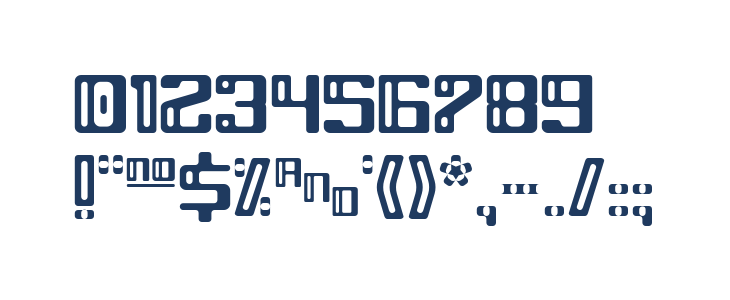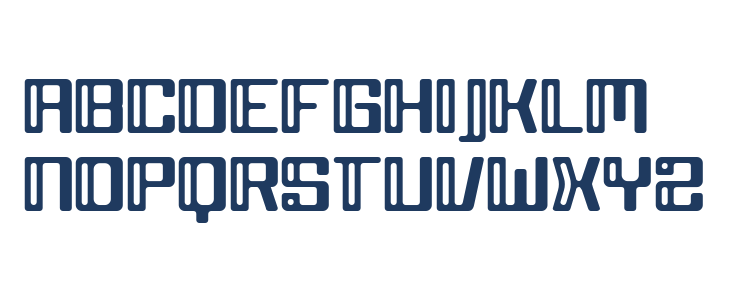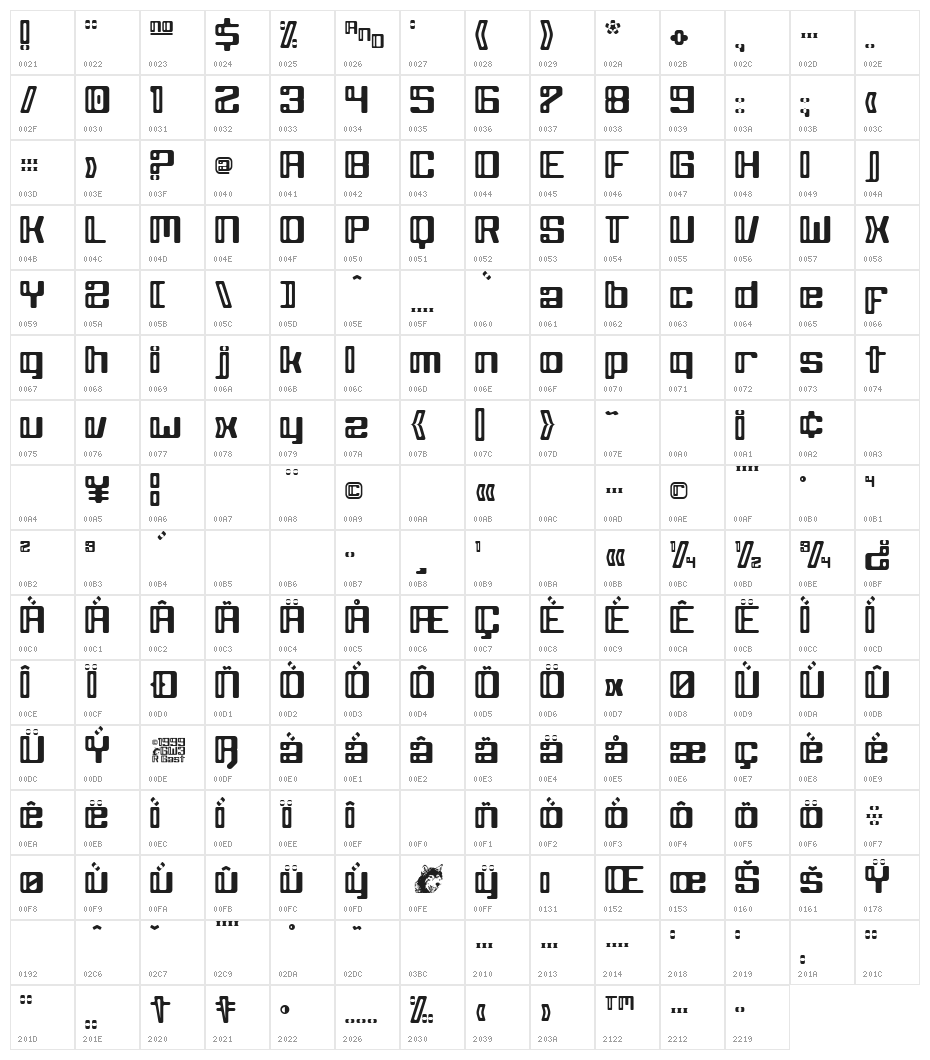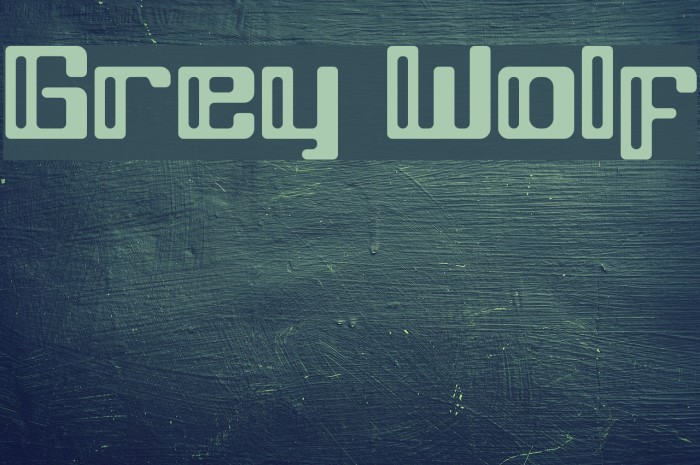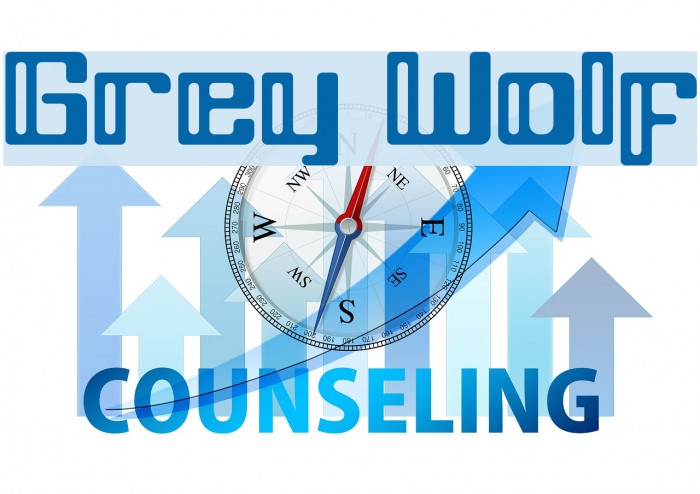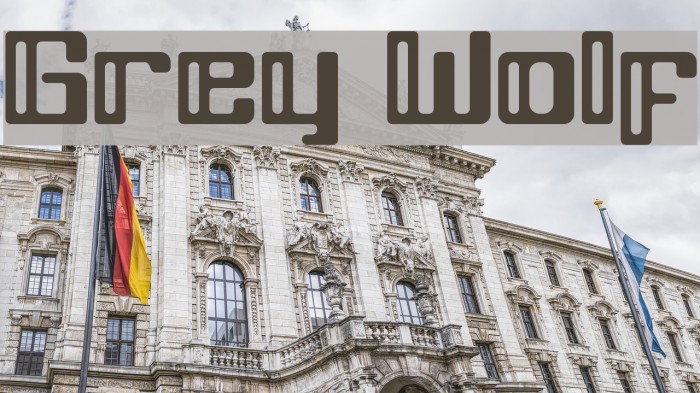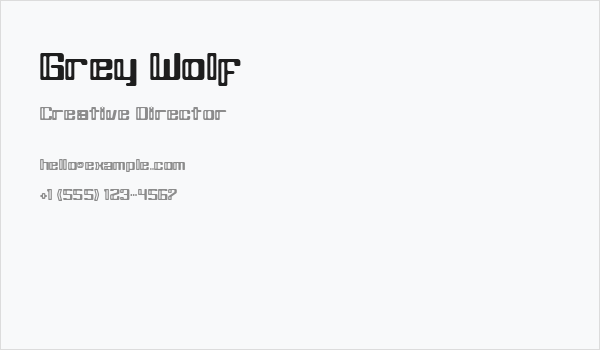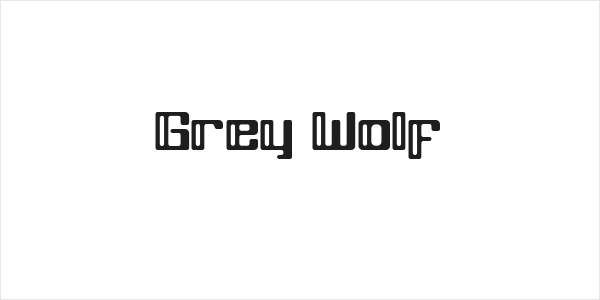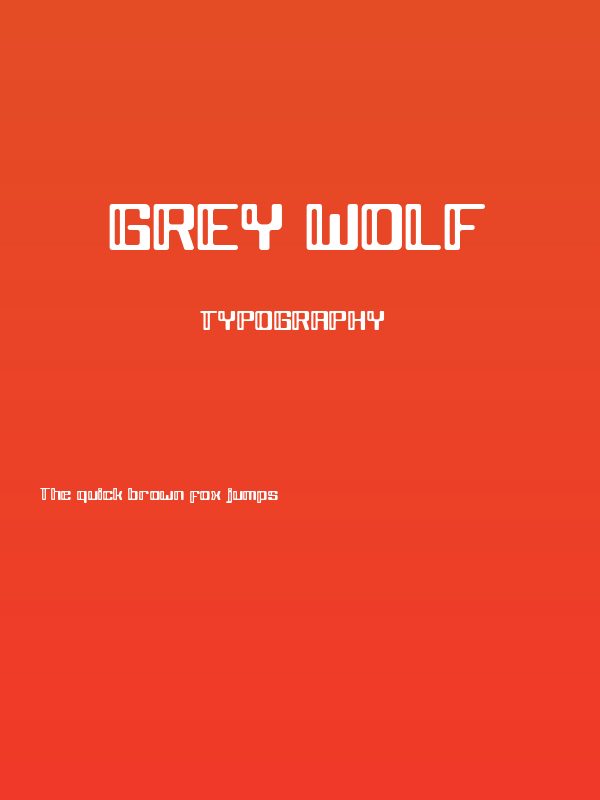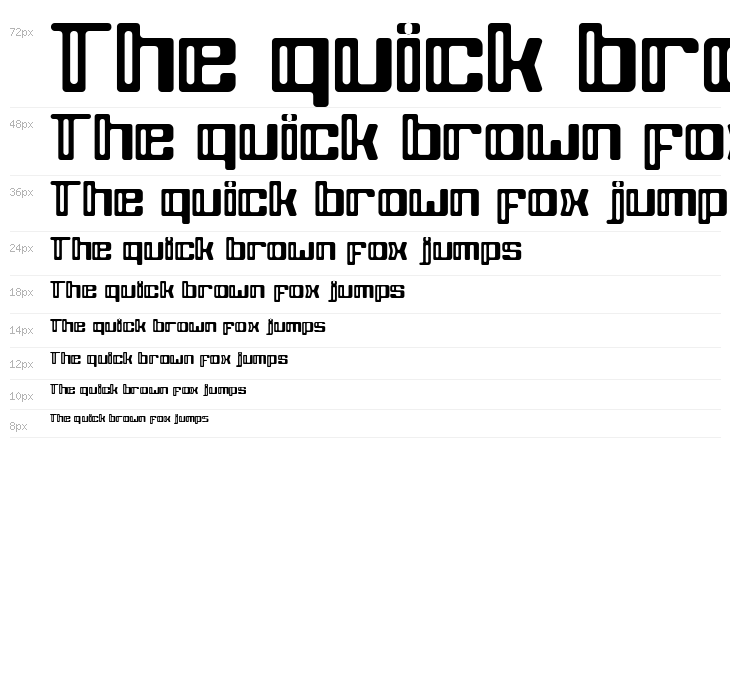
Grey Wolf Font
Grey Wolf Description
This font features a bold, geometric design with a futuristic and digital aesthetic. The characters are constructed with a combination of rounded and angular elements, creating a unique and modern appearance. The uppercase and lowercase letters maintain a consistent style, with some characters incorporating distinctive cutouts and shapes that add to the font's visual interest. The numerals are equally bold and follow the same design principles, ensuring uniformity across all characters. Special characters are included, each designed to complement the overall style of the font. The font's strong presence makes it suitable for attention-grabbing designs.
| Proposed Projects | Ideal for technology branding, video game titles, sci-fi posters, and digital interfaces. |